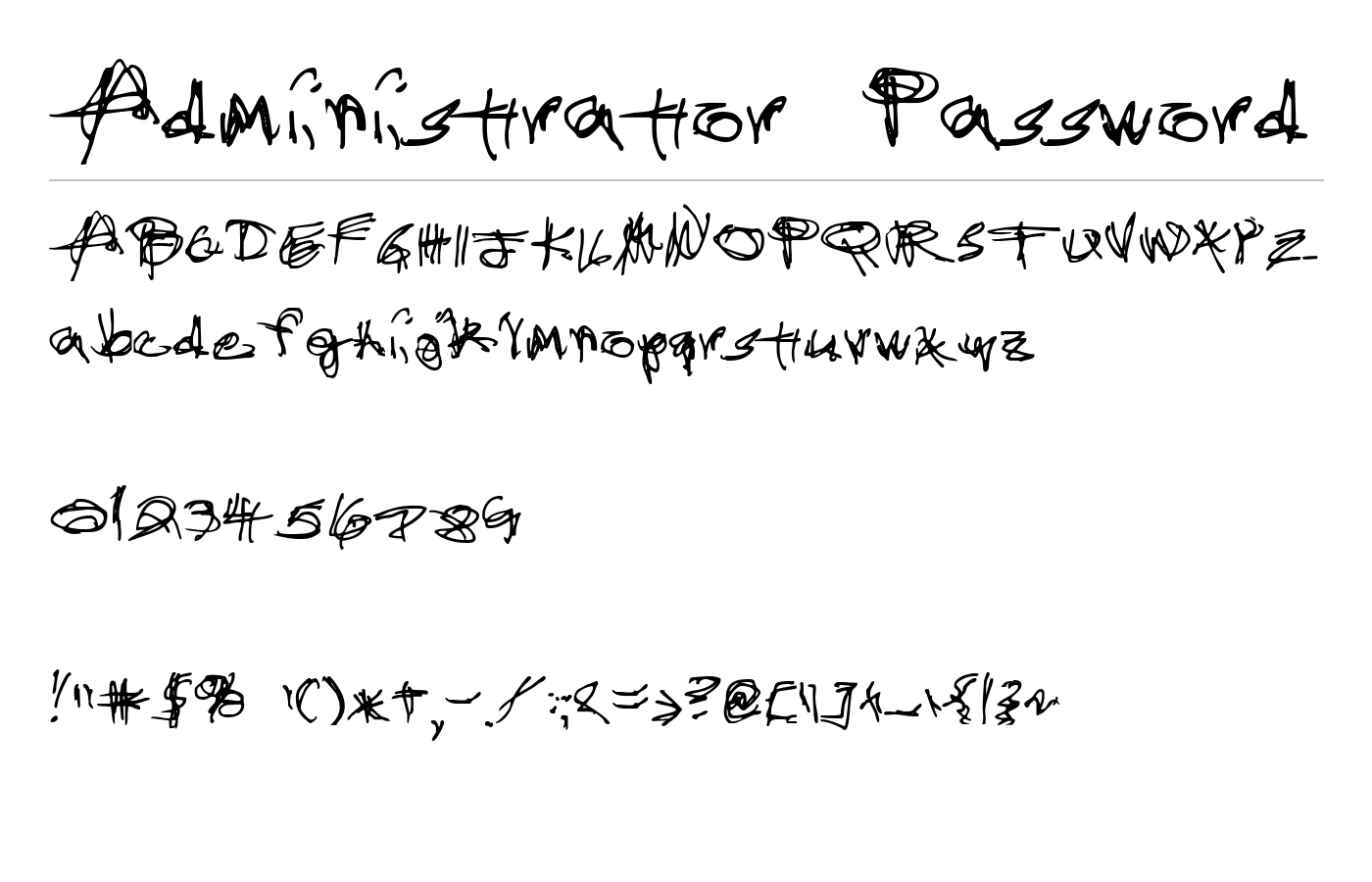
Administrator Password Font is a chaotic, scribble-style handwritten typeface with irregular, densely overlapping strokes that create a frantic and unstructured look. Its energetic, rough design conveys a feeling of urgency or secrecy, making it ideal for creative projects, edgy branding, or designs seeking a distressed, rebellious vibe. This font works best in headlines, posters, or digital art where a raw, expressive style is desired rather than in formal or body text settings.
Administrator Password Font